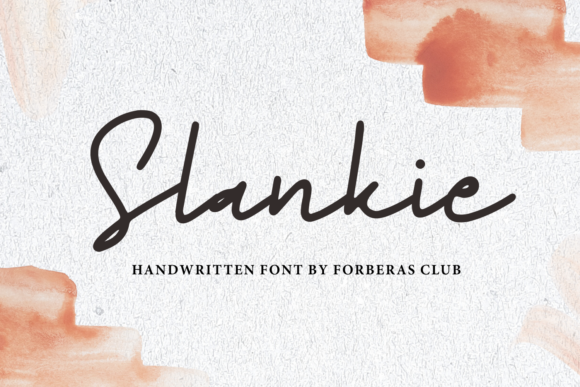
In a world saturated with mediocrity, allow Slankie Font, the captivating script font family, to ignite your creative spark and leave an indelible impression on your audience.
Unleash the power of Slankie, a font meticulously crafted to capture attention and elevate your branding to new heights. Its every curve and stroke exudes elegance, lending an air of sophistication to your projects that will make them impossible to ignore.
With Slankie as your creative ally, you'll have the freedom to make your headings, logos, advertisements, and social media branding dance with a vibrancy that will set you apart from the crowd. Its versatility knows no bounds, effortlessly adapting to a wide range of applications, from printed quotes to eye-catching packaging designs.
Imagine the impact of your website or social media presence adorned with the captivating allure of Slankie. Your words will leap off the screen, captivating your audience and leaving them spellbound. Prepare to witness a surge of engagement and admiration as your brand commands attention in the digital realm.
Slankie is more than just a font; it's a transformative force that will redefine your creative expression. Its enchanting aura will draw your audience in, igniting their imagination and leaving them eager for more. Experience the transformative power of Slankie and watch as your projects take on a life of their own, captivating hearts and minds with their newfound elegance and charm.
As a creation of the renowned Forberas Club, Slankie embodies the pinnacle of font design, meticulously crafted to meet the demands of modern branding. Its intricate details and flowing lines are a testament to the artistry and dedication poured into its creation.
Don't settle for ordinary fonts that blend into the background. Choose Slankie, the font that commands attention, ignites imaginations, and leaves a lasting impression. Let your creativity soar and witness the remarkable transformation that Slankie will bring to your projects.